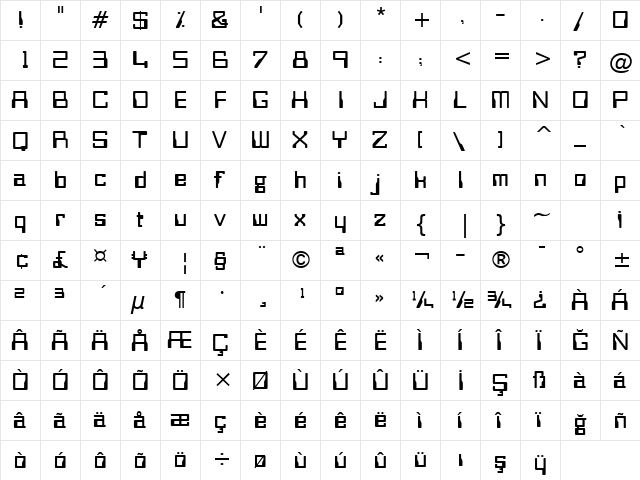
Turkish OrbitB BT
Design Context for Turkish OrbitB Typeface
Turkish OrbitB is a composed and adaptable typeface that performs quietly and consistently across a wide range of design contexts.
Pro Tip: Use Turkish OrbitB in both headline and body roles to test its range before committing to a single application.